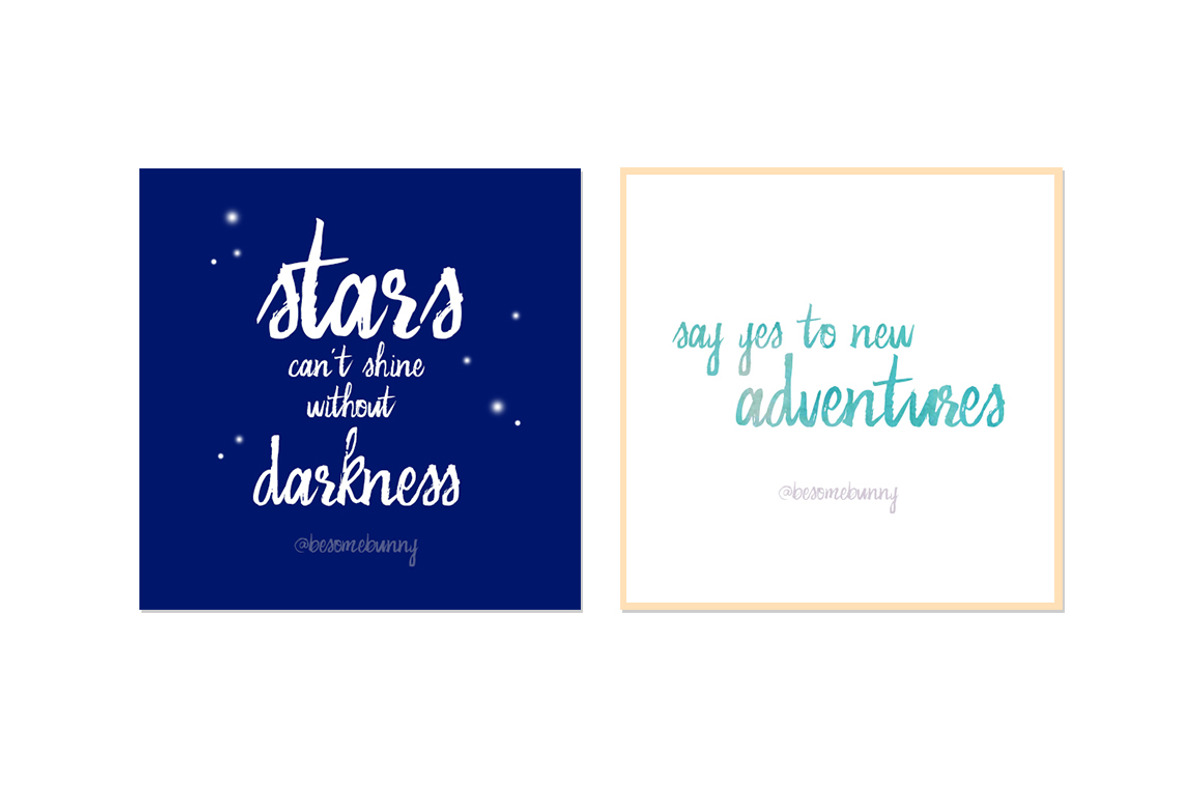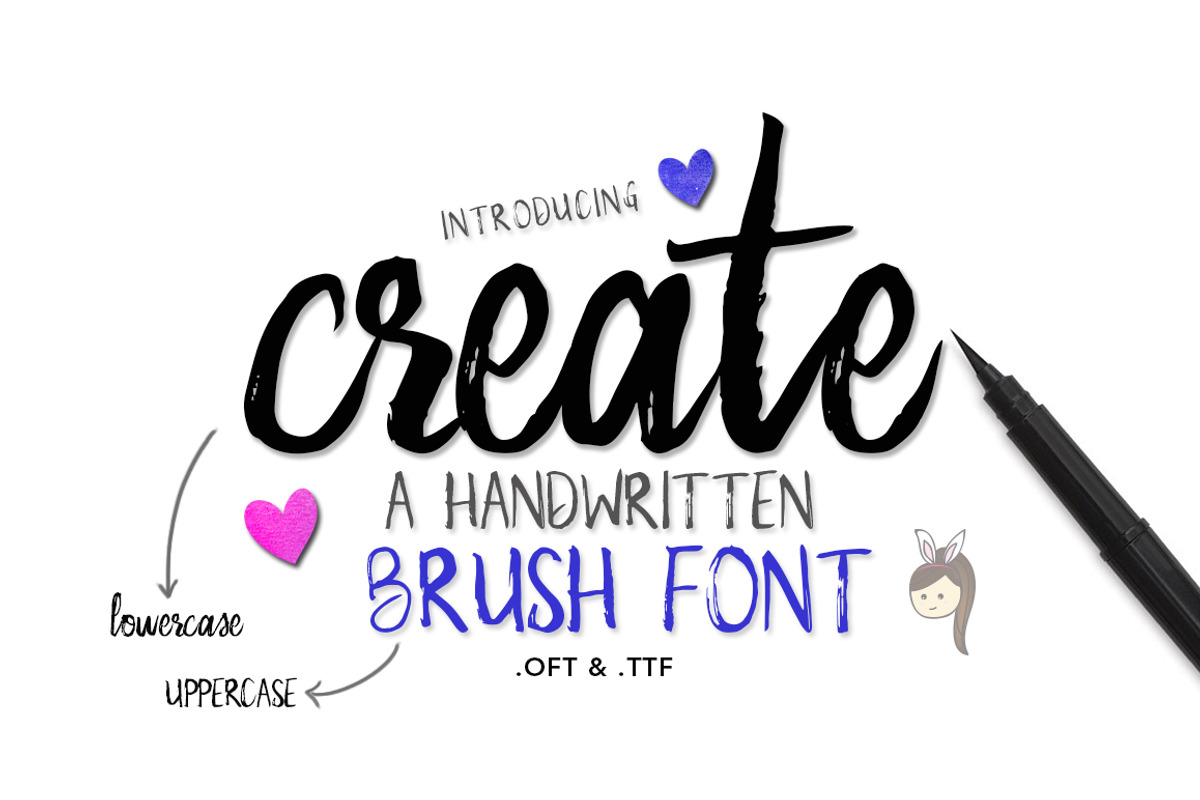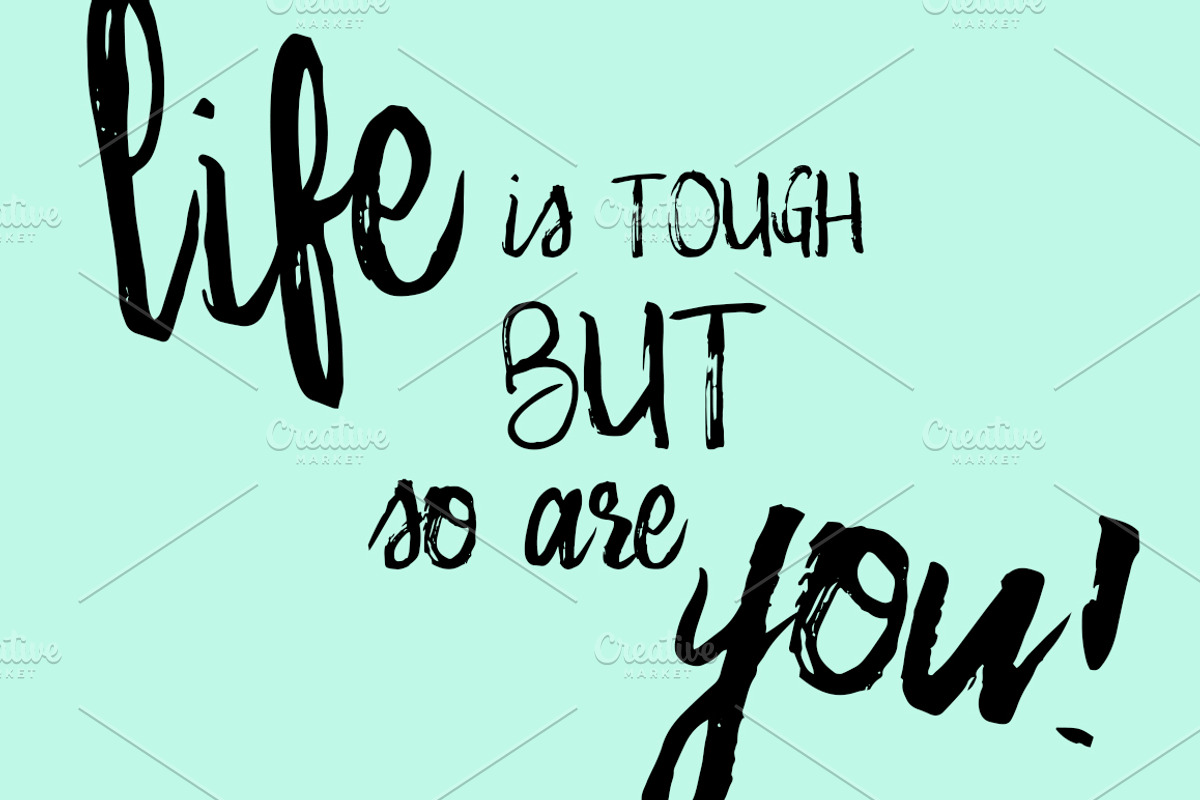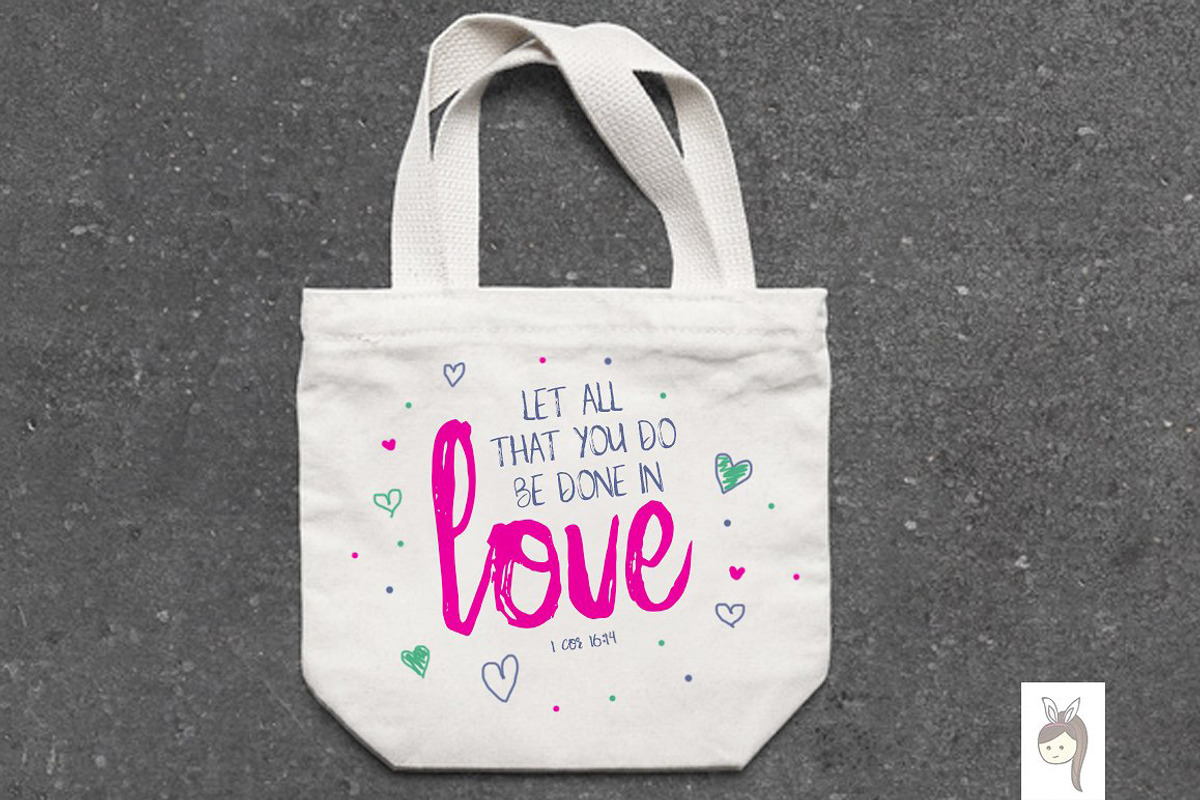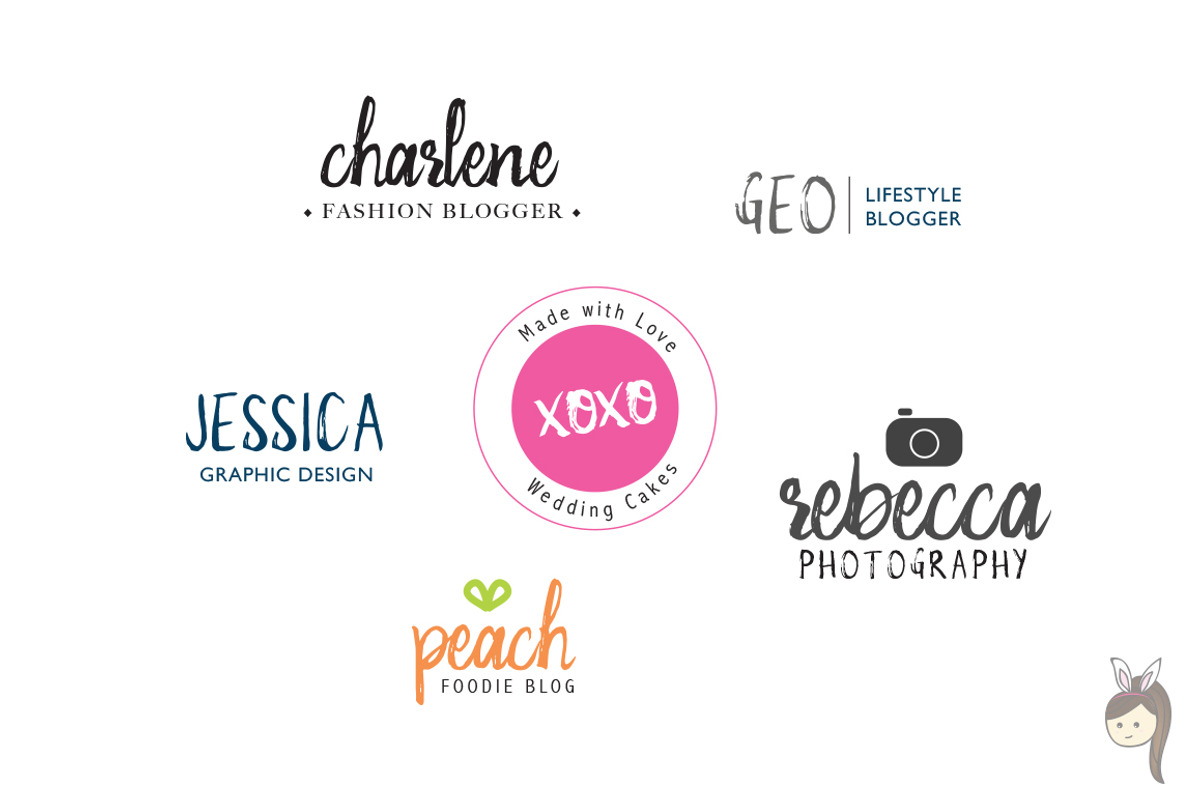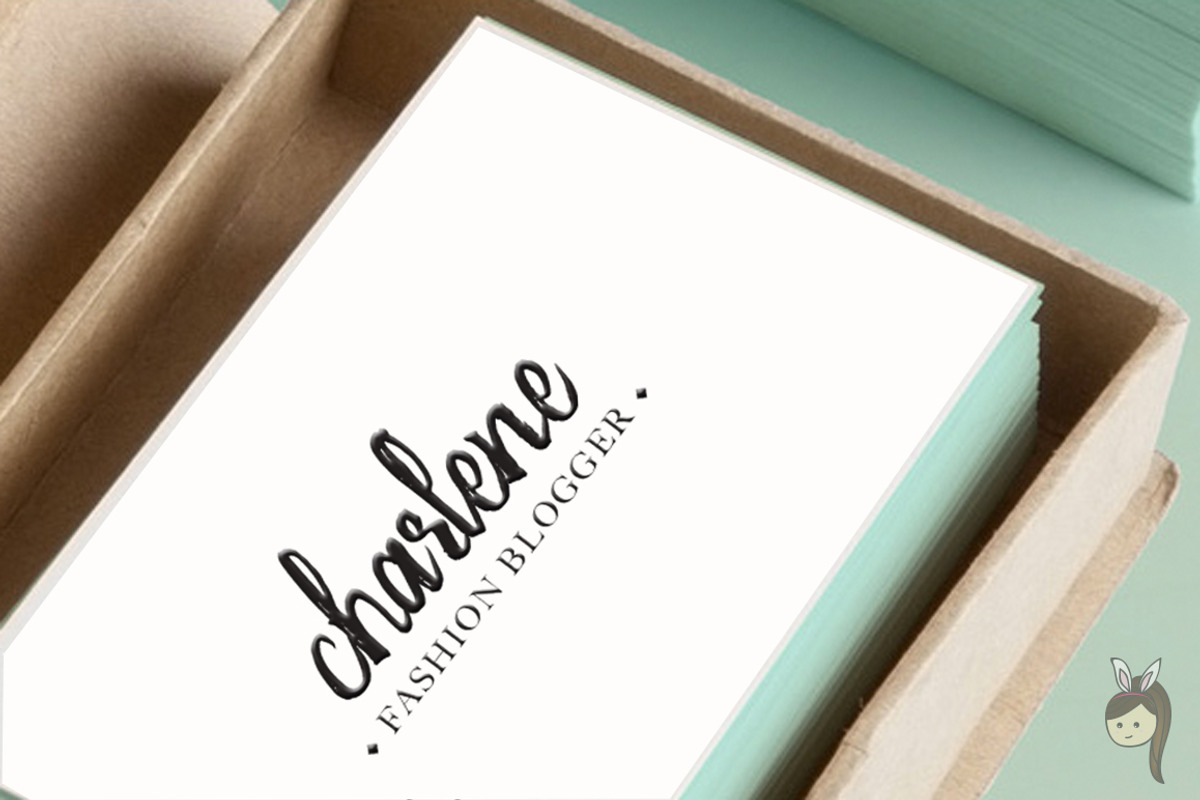
Create Brush Font
Create Brush Font by besomebunny is a font selected for branding, posters, packaging, typography.
Why Create Brush Font is worth a look
Create Brush Font by besomebunny fits naturally into Branding, posters, packaging, typography.